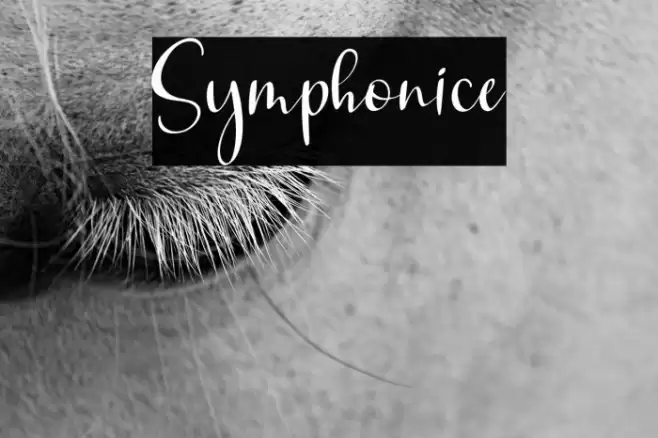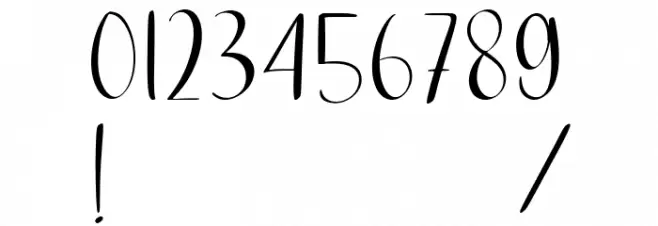
Symphonice Font
Symphonice Description
This font features a dynamic and flowing script style, characterized by its elegant curves and artistic flair. The uppercase letters exhibit a tall and slender form, with a slight slant that adds a sense of movement and grace. The lowercase letters are more fluid, with sweeping ascenders and descenders that create a harmonious and rhythmic appearance. The numerals are consistent with the overall style, maintaining the same elegant and flowing characteristics. Special characters are designed with the same attention to detail, ensuring a cohesive look throughout. This font is perfect for projects that require a touch of sophistication and creativity.
A dynamic and elegant script font with flowing curves and artistic flair from Regular fonts.
- Proposed Projects: Ideal for wedding invitations, branding, greeting cards, and elegant packaging designs.
- Overall Style: Elegant
- Use Case: Logos, Invitations, Decorative text